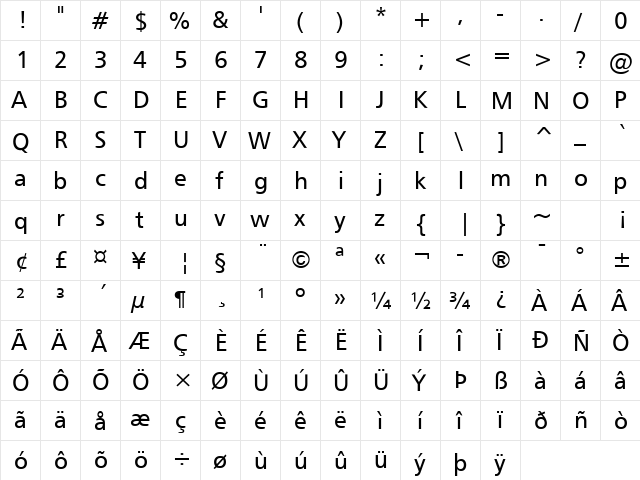
Homeplace 3 Regular Font Preview
Homeplace 3 Regular
Homeplace 3 Regular Font Details
Design Context for Homeplace 3 Typeface
Homeplace 3 is a composed and adaptable typeface that performs quietly and consistently across a wide range of design contexts.